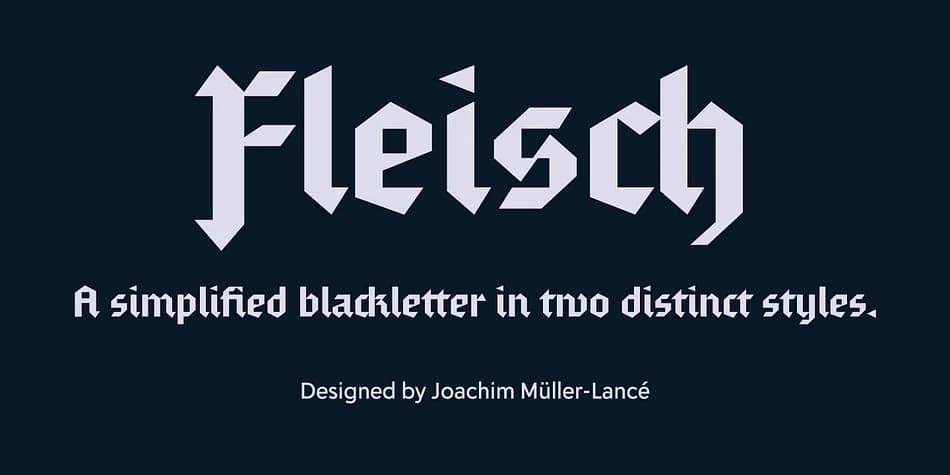
There's a tactile, nostalgic warmth to blackletter that bridges ornament and edge. Fleisch, designed by Joachim Müller-Lancé, channels that tension through two distinct voices inspired by German signage, old newspaper ads, and the designer's own childhood memories of letterforms in Freiburg.
The typeface comes in two flavors with real personality. Wurst leans into chunky, squared forms that feel almost architectural, while Wolf sharpens those same bones into pointed, elegant strokes. Both explore how negative space talks to its container, making each letter feel more like carefully balanced geometry than traditional stroke work. The capitals are intentionally simplified and romanized so you can actually set full words in uppercase without them overwhelming the page.
For type-heavy work like luxury packaging labels, vintage-style wedding suites, and custom vinyl decals, Fleisch delivers instant character. You get multiple figure styles (lining and oldstyle), alternate shapes for common letters like a, k, x, and z, plus decorative caps and symbols perfect for drop caps or headlines. Pair it with a clean, neutral sans-serif for body text to let the blackletter breathe. Both styles are available now on Creative Fabrica.
Fleisch Font is a blackletter font that shines as a display or heading face. Pair it with a clean serif or sans-serif font for body text — the contrast creates a clear hierarchy while the two styles stay balanced and easy to read.